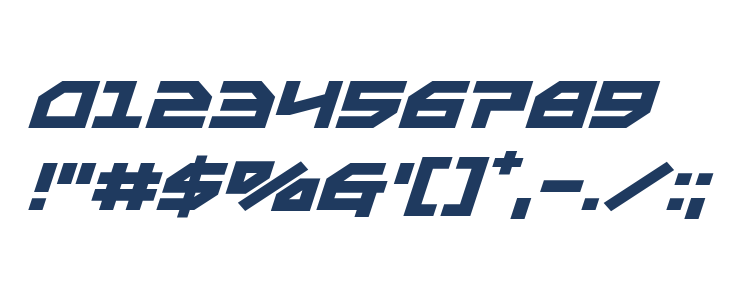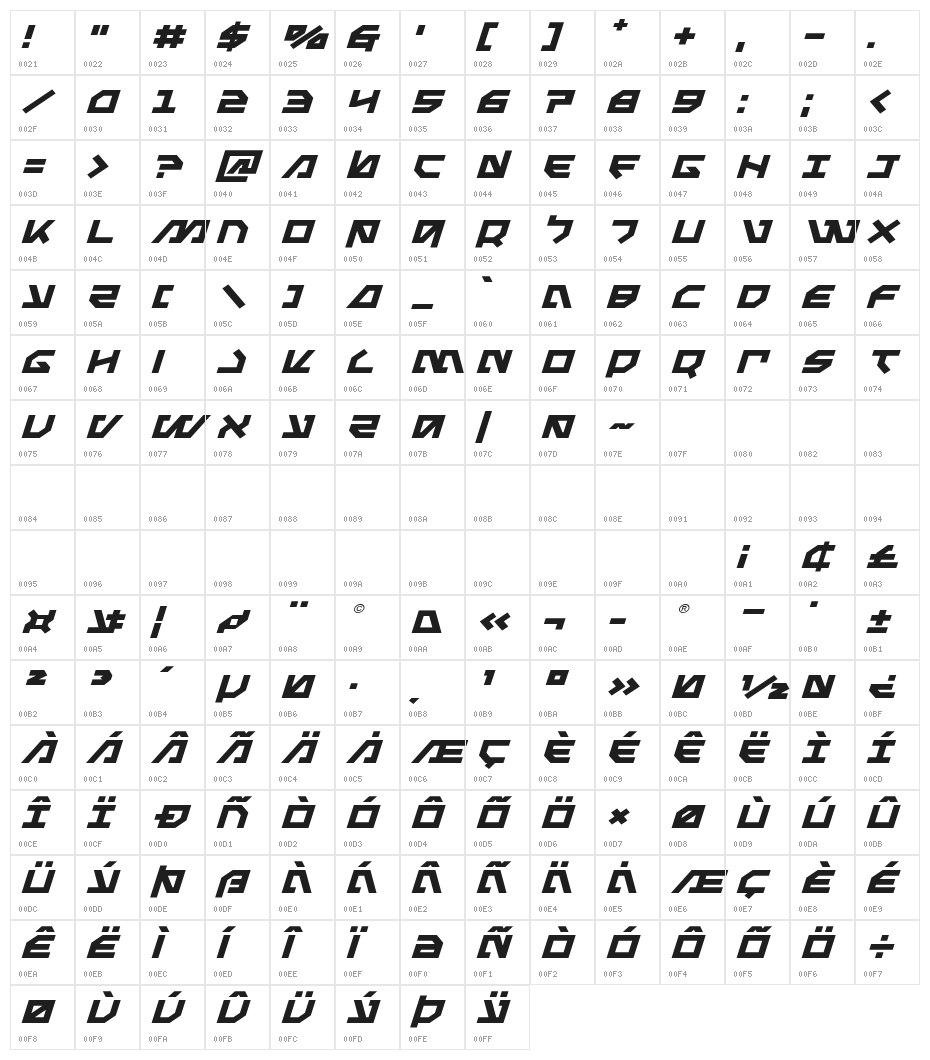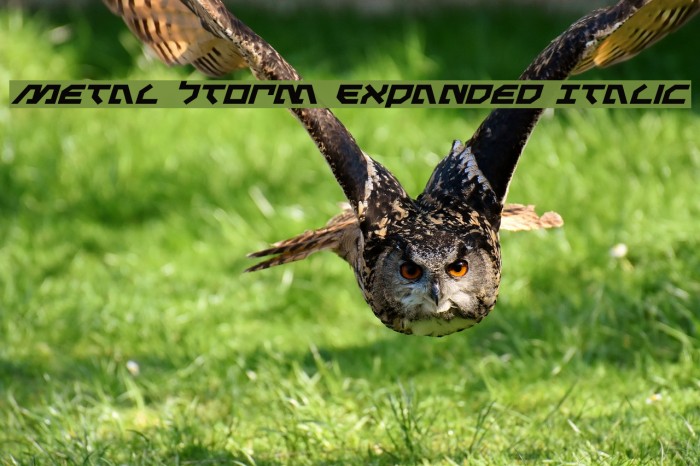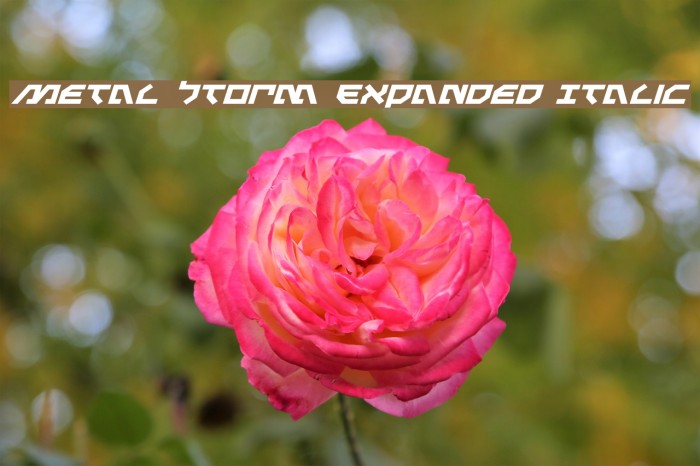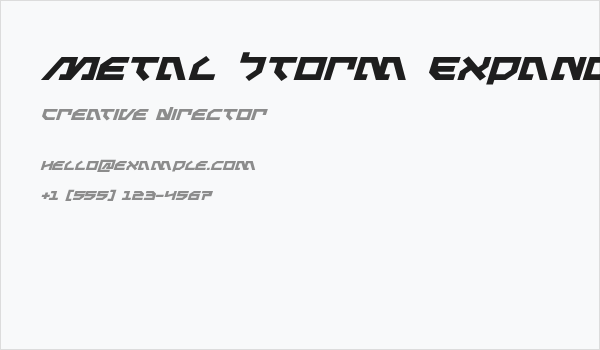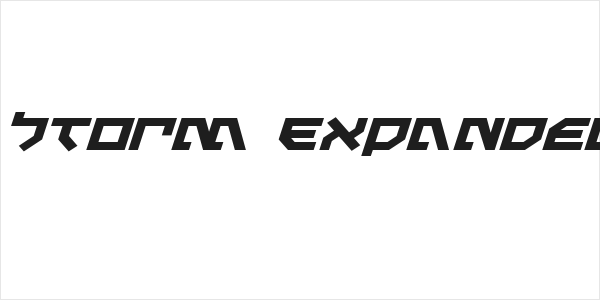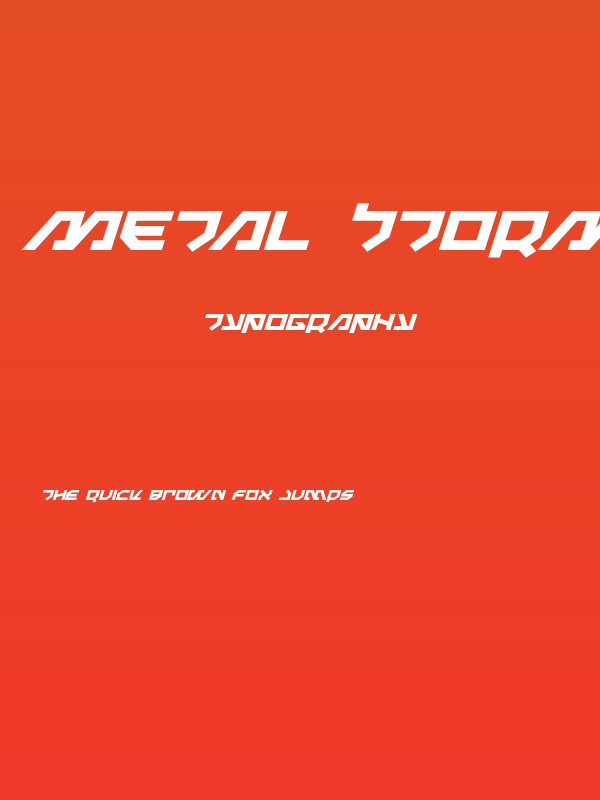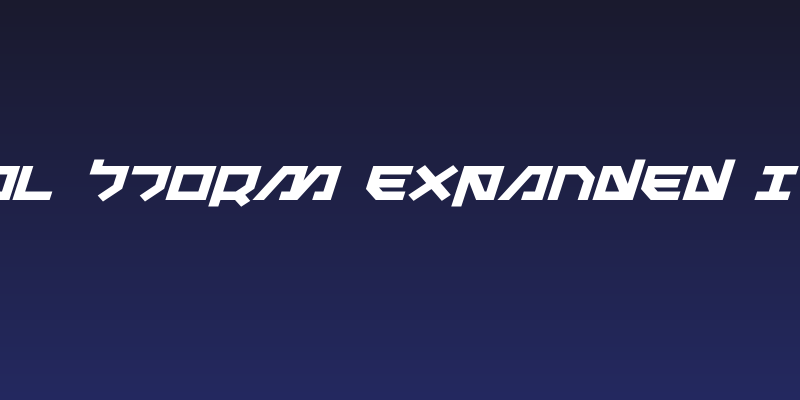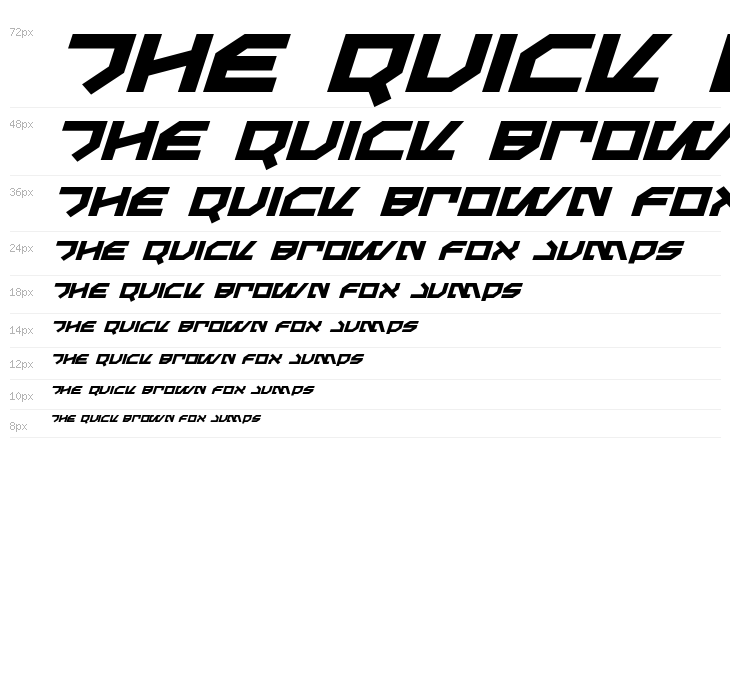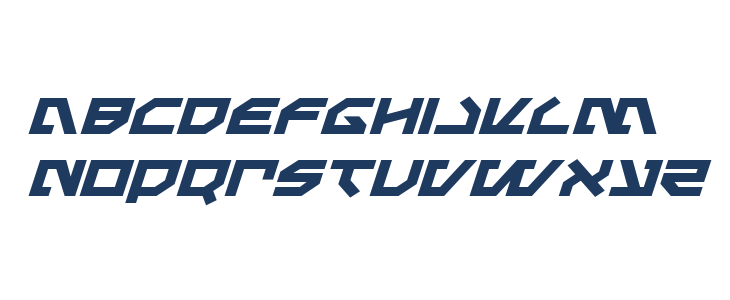
Metal Storm Expanded Italic Font
Metal Storm Expanded Italic Description
This font features a bold, angular design with a futuristic and aggressive aesthetic. The characters are sharply cut with distinct edges and a slanted, italicized form that suggests motion and speed. The uppercase and lowercase letters maintain a consistent style, with the uppercase being more pronounced. Numbers and special characters follow the same angular and dynamic design, making them stand out. The overall appearance is striking and modern, suitable for projects that require a strong visual impact.
| Proposed Projects | Ideal for video game titles, sci-fi movie posters, tech branding, and sports team logos. |